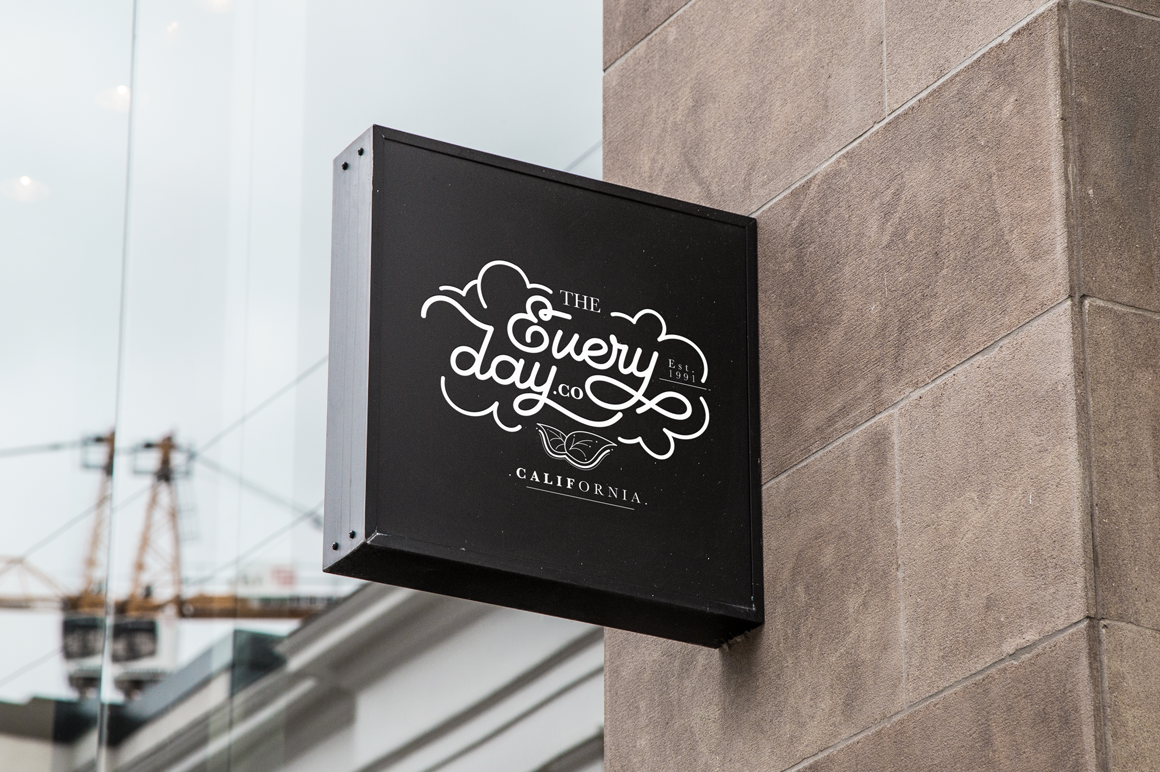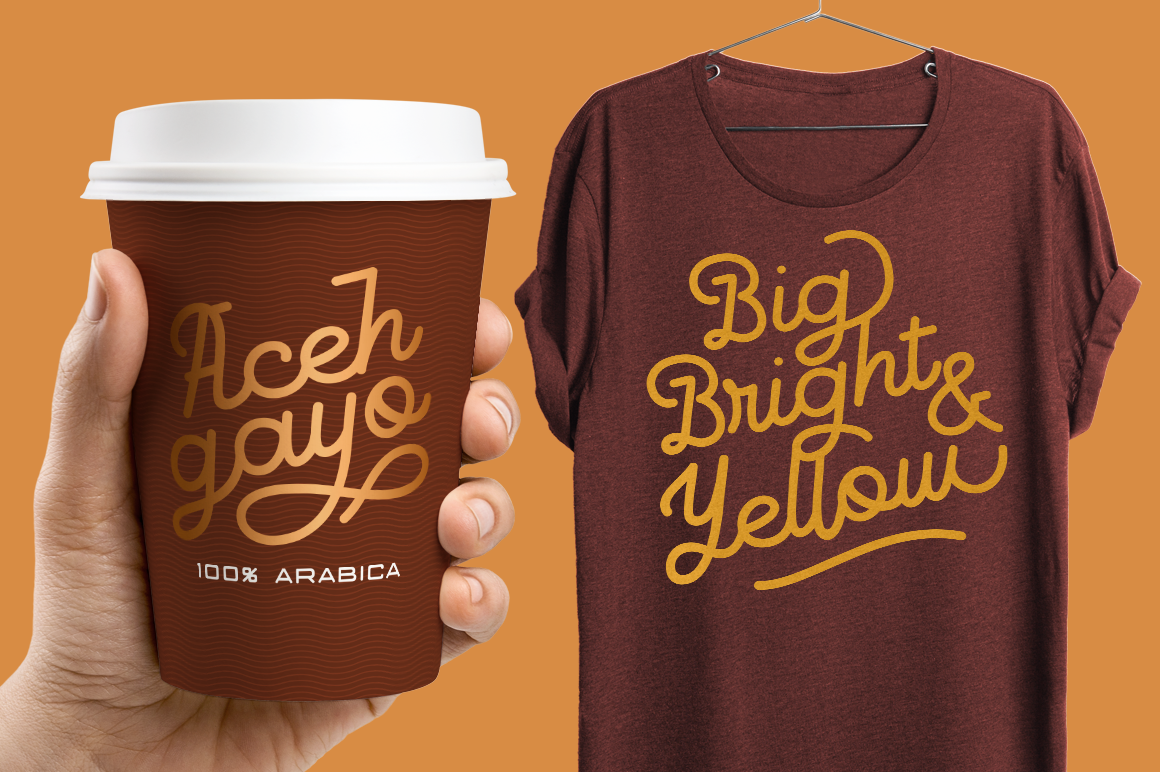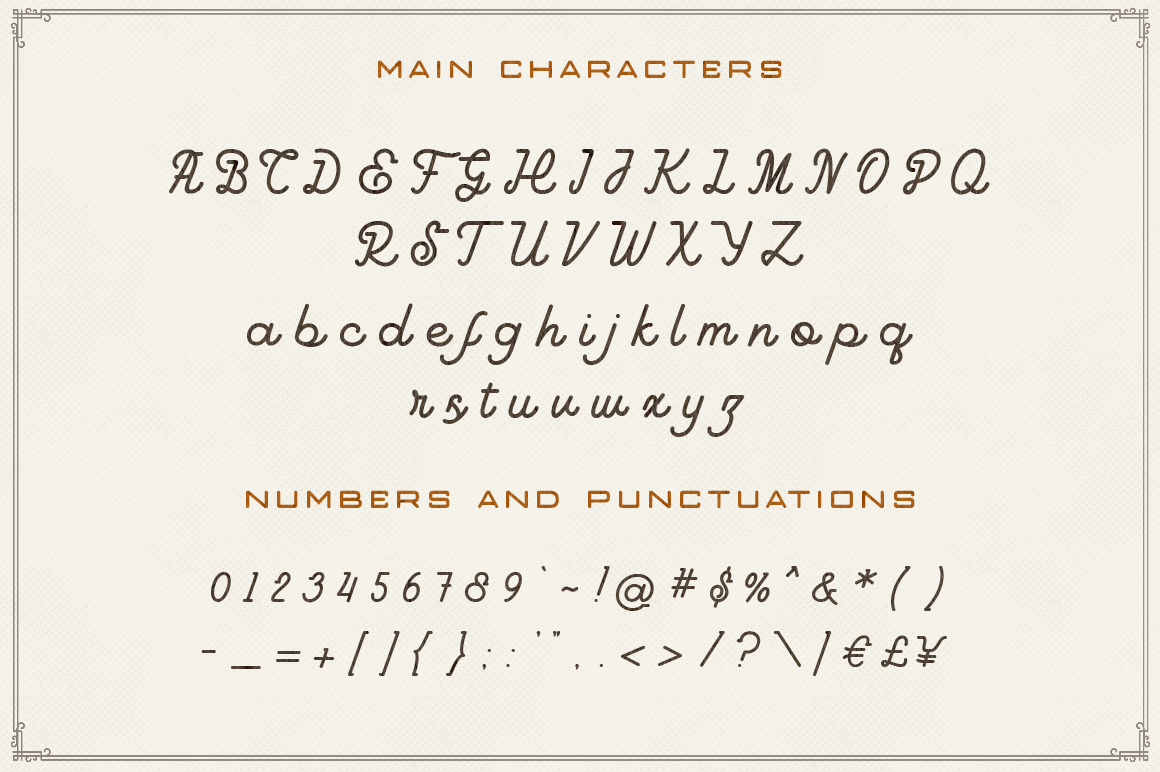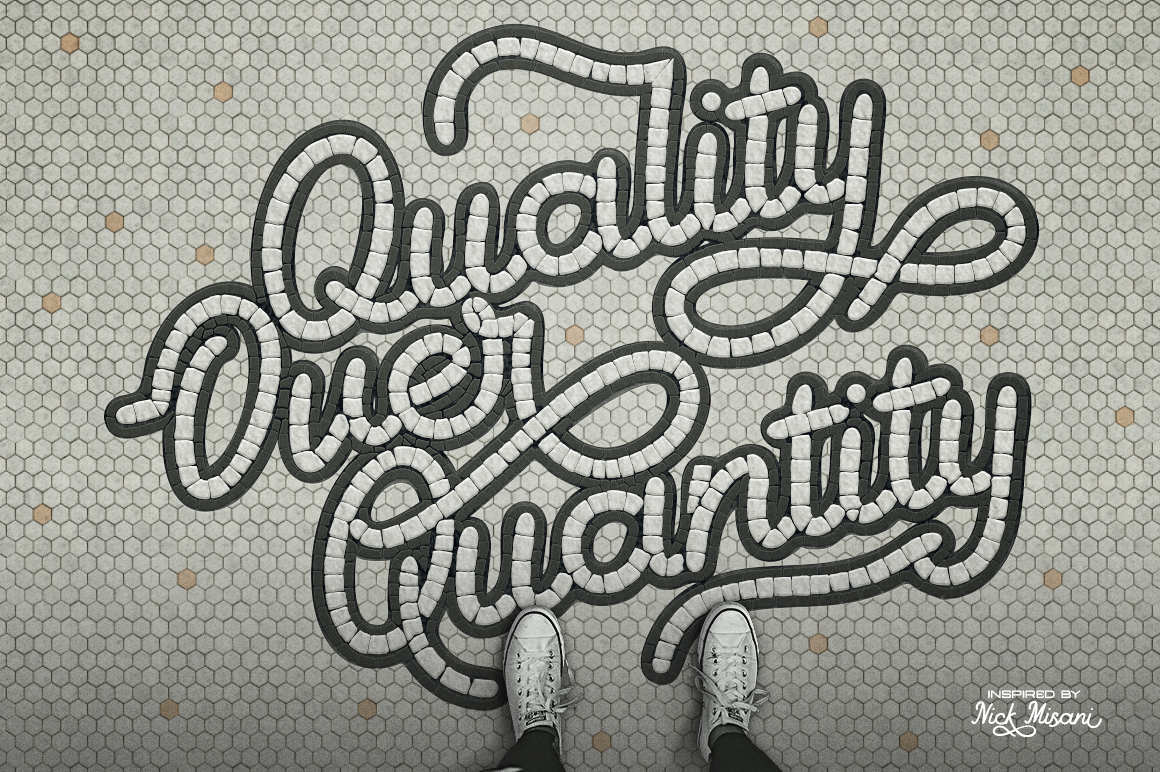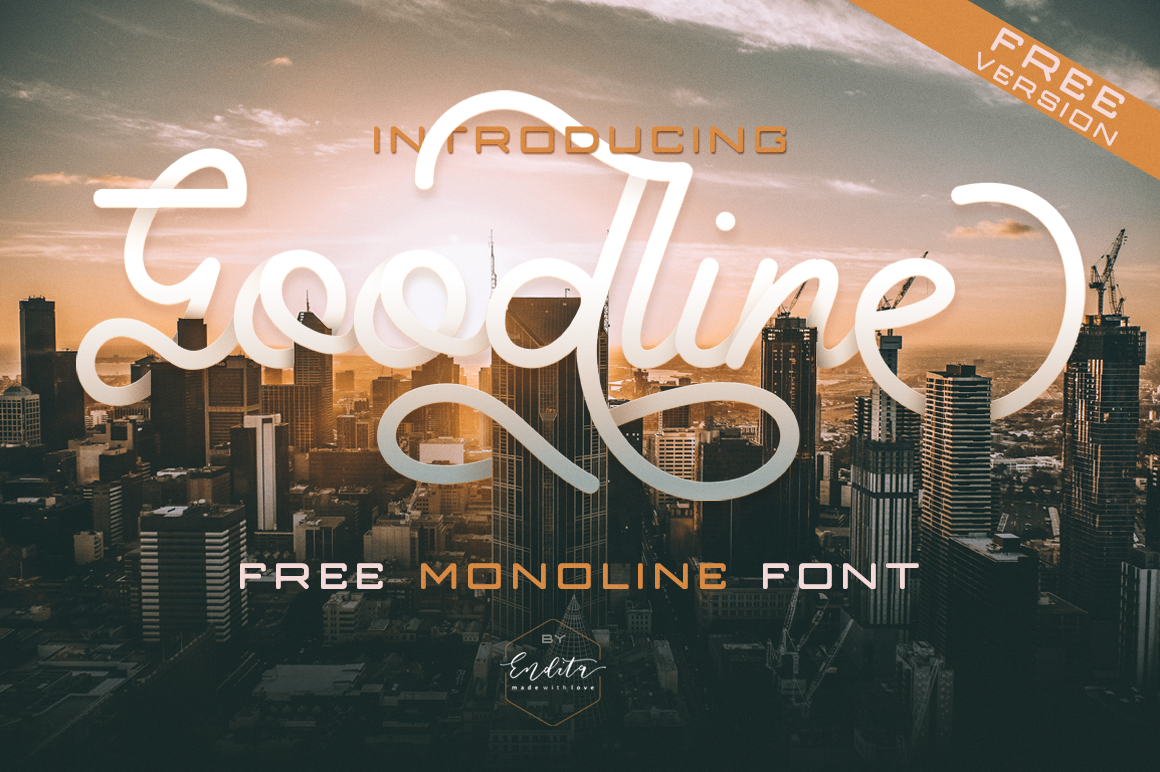
Goodline Font
About Goodline Font Font
Goodline is a beautiful monoline font with movement and grace. Although simple, Goodline is stunning as a display, and can give your headlines a clean and modern look and feel.